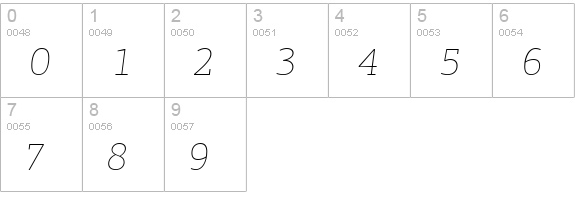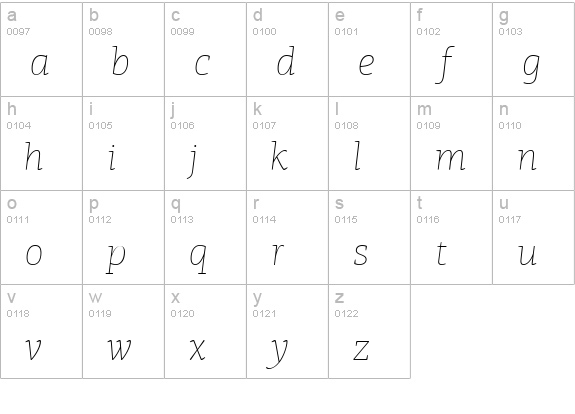
PFAgoraSlabPro-ExtraThinItalic font is an elegant and modern typeface designed for those seeking a sleek and sophisticated look. With its delicate and slender letterforms, this font exudes a sense of refinement and style. The italic style adds a touch of flair and elegance to any design project. Best of all, PFAgoraSlabPro-ExtraThinItalic is available for free download at FontsMarket.com. This means you can easily incorporate this beautiful font into your projects without any cost. Whether you're working on branding, editorial design, or any other creative endeavor, PFAgoraSlabPro-ExtraThinItalic is sure to make a statement. Download it today and elevate your designs with this stunning typeface.